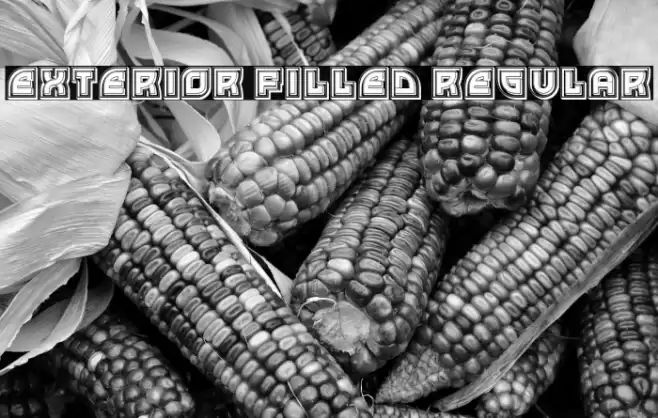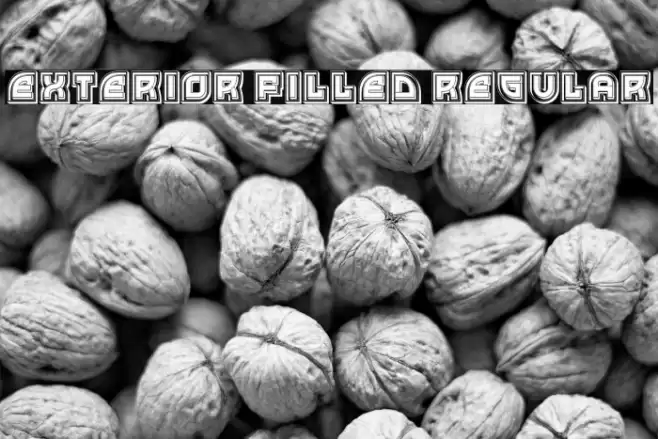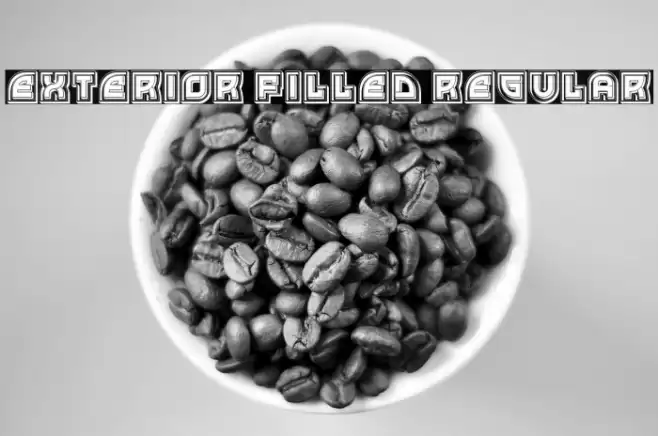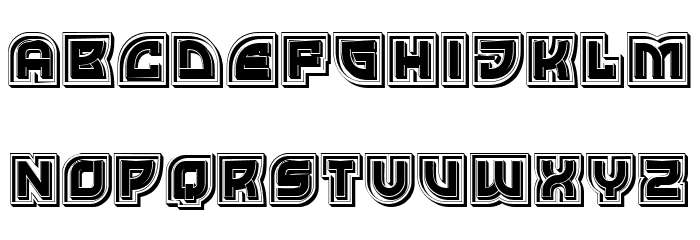
Exterior Filled Regular Font
Exterior Filled Regular Description
This font features a bold and striking design with a filled exterior and a layered, three-dimensional appearance. The characters are outlined with a thick border, creating a sense of depth and dimension. The geometric shapes and sharp angles give it a modern and futuristic feel, while the consistent width and height across characters ensure readability. Its unique style makes it stand out, suitable for eye-catching designs. The font's boldness and distinct outlines make it ideal for projects that require a strong visual impact.
A bold, three-dimensional font with a filled exterior and thick outlines from Uncategorized fonts.
- Proposed Projects: Ideal for posters, headlines, branding, and any design needing a bold, modern look.